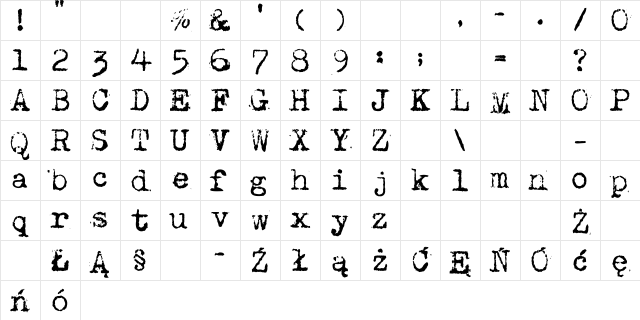
Complete MaszynaAEG Regular glyph index. Displaying only characters natively supported by MaszynaAEG Regular font.
MaszynaAEG is a composed and adaptable typeface that performs quietly and consistently across a wide range of design contexts.